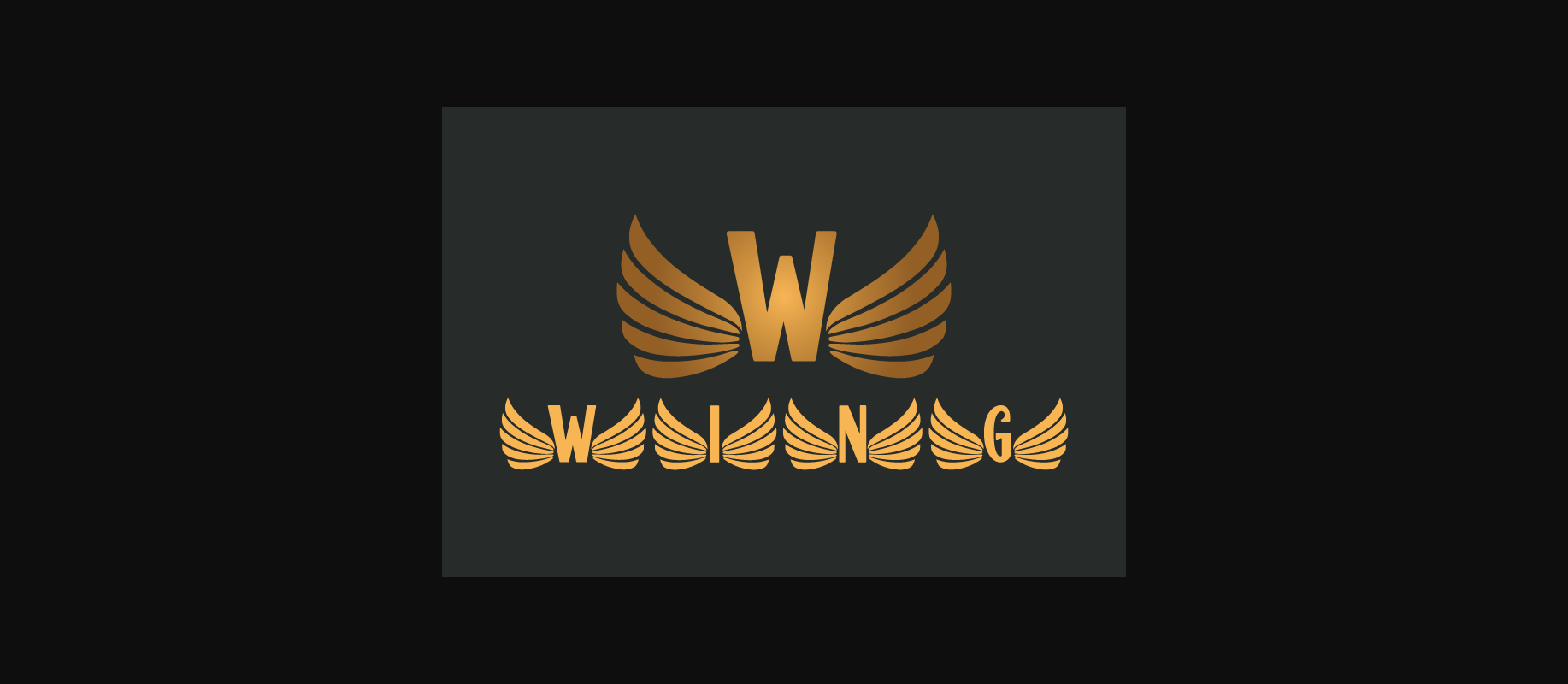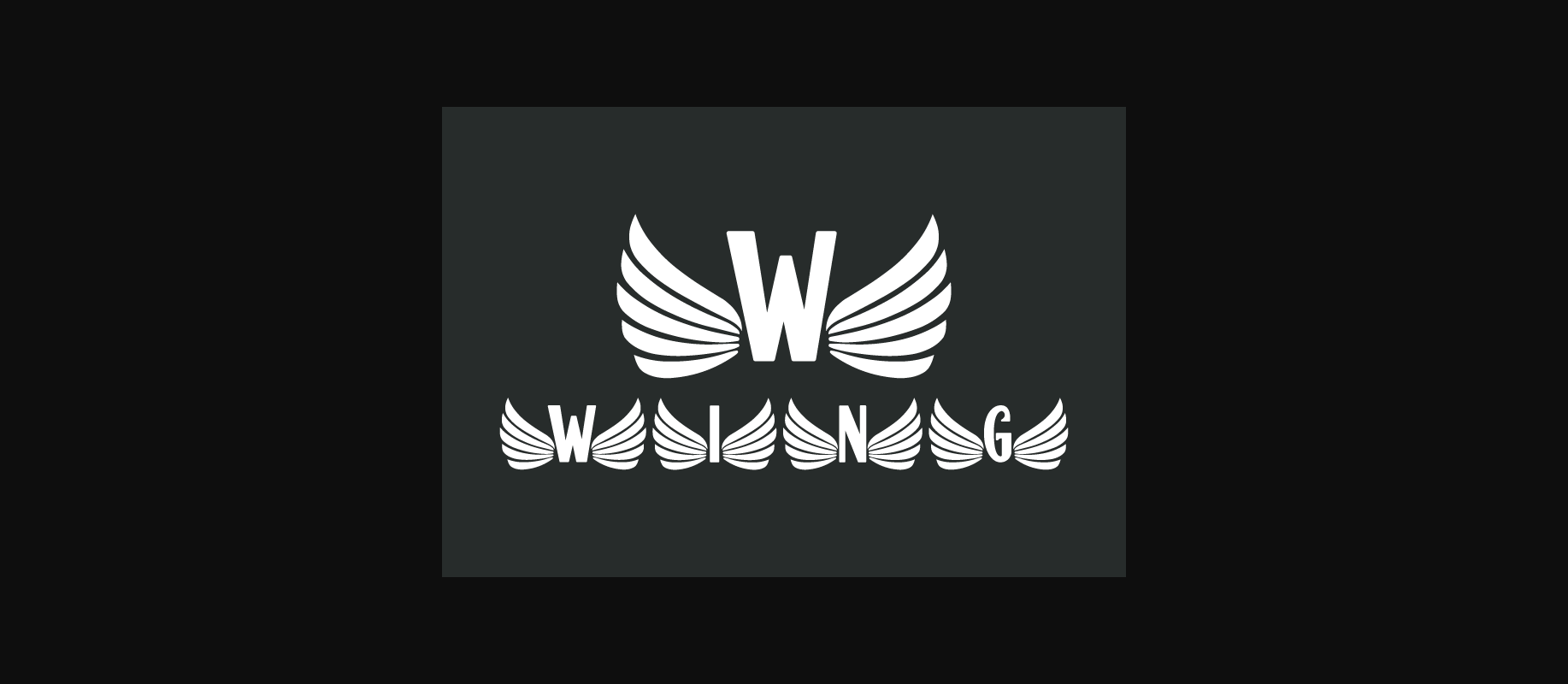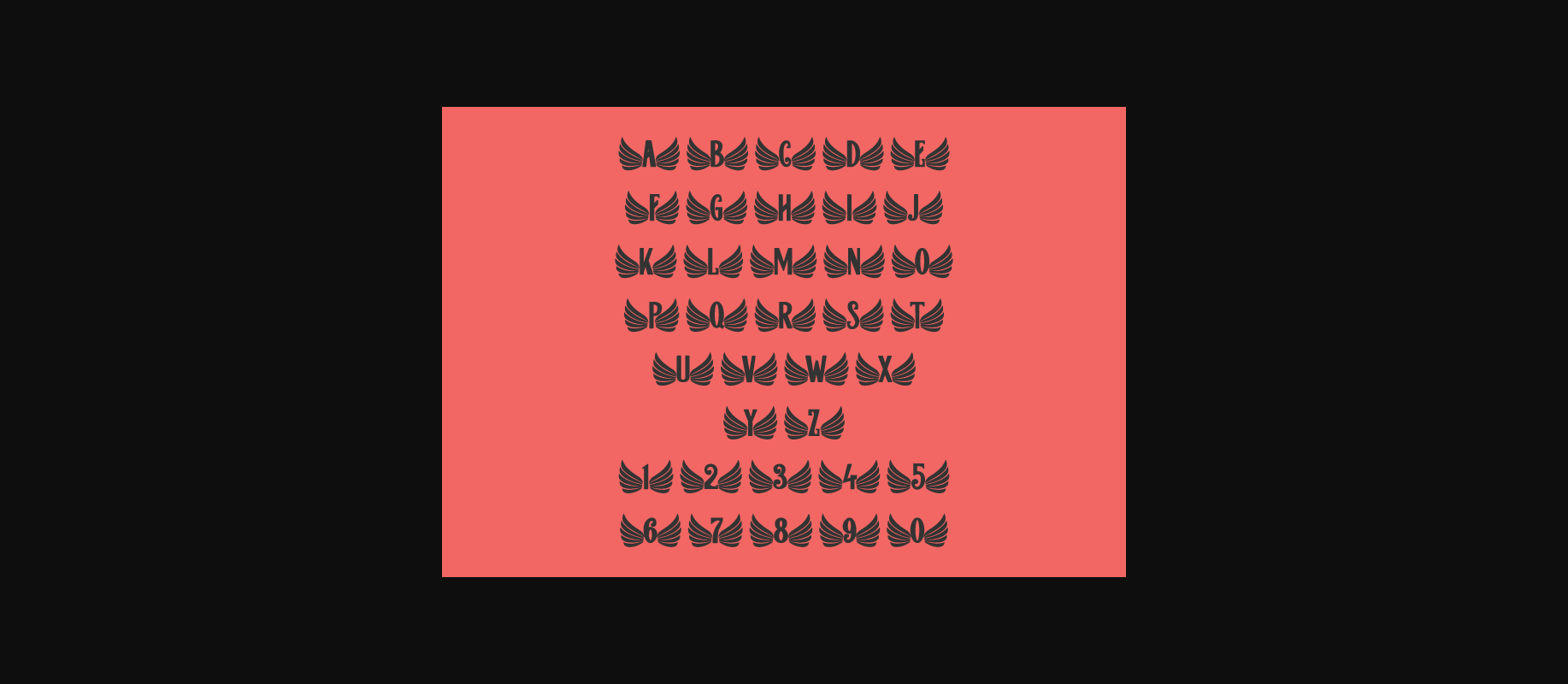
Wing Font
About Wing Font
Wing is a gorgeous decorative font, that fits incredibly well to this time of the year. No matter the topic, this font will be an incredible asset to your fonts’ library, as it has the potential to elevate any creation. you can use this font for your logo and many creative projects.